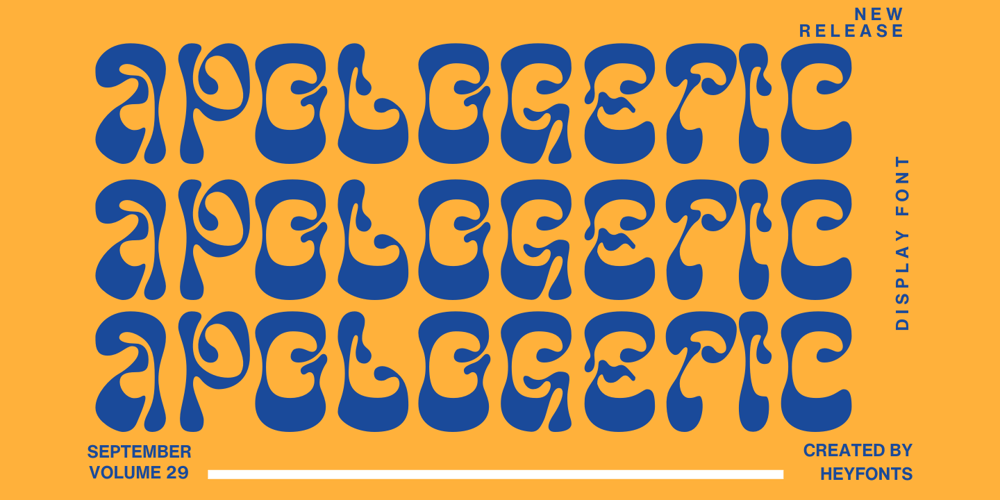
Apologetic
Apologetic font
Apologetic Font Family was designed by Asep Rendy and published by Heyfonts. Apologetic contains 1 styles and family package options. Anglepoise TypefaceAnglepoise – Tropical often incorporate organic and flowing design elements, mimicking the curves and shapes found in nature, such as palm fronds, waves, or exotic flowers. These elements can add a sense of fluidity and movement to the typography.if you are looking for a font that embodies a tropical or exotic aesthetic, you may be interested in fonts that are inspired by or commonly associated with tropical themes. Such fonts often feature characteristics that evoke feelings of warmth, relaxation, and the natural beauty of tropical environments. Here’s a general description of what you might expect from a font with a tropical theme:Organic and Flowing: Tropical fonts often incorporate organic and flowing design elements, mimicking the curves and shapes found in nature, such as palm fronds, waves, or exotic flowers. These elements can add a sense of fluidity and movement to the typography.